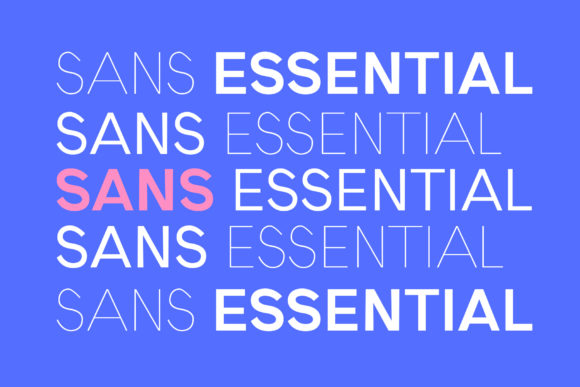
**Introducing Sans Essential: The Essential Sans-Serif Font for Design Versatility**
Calling all designers, creatives, and typography enthusiasts! Embark on a delightful font journey with Sans Essential, the epitome of simplicity and elegance from denestudios. This sans-serif masterpiece is designed to captivate your audience and elevate your designs to new heights.
With its clean lines, balanced proportions, and captivating curves, Sans Essential effortlessly complements any design concept. Its versatility knows no bounds, making it perfect for everything from minimalist logos and captivating headlines to sleek website designs and enchanting social media posts.
Embrace the power of Sans Essential and elevate your designs with sophistication, clarity, and an irresistible charm that will leave a lasting impression. **